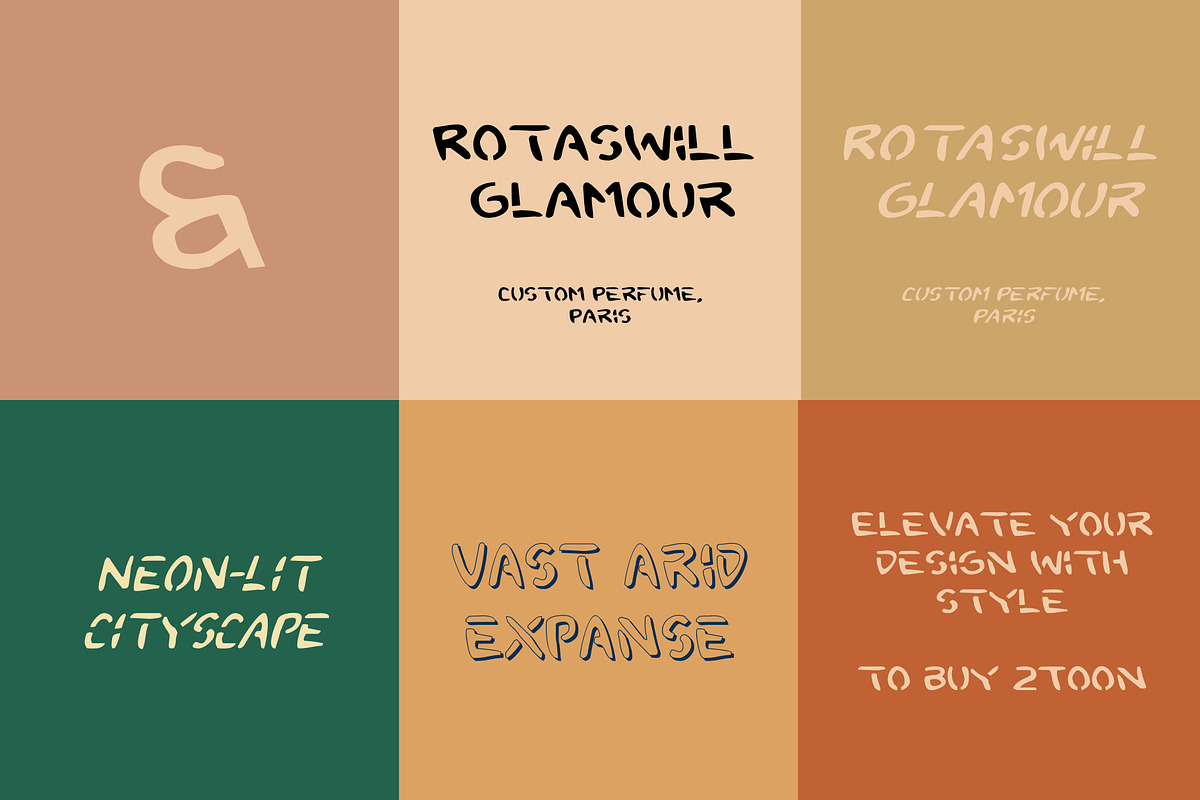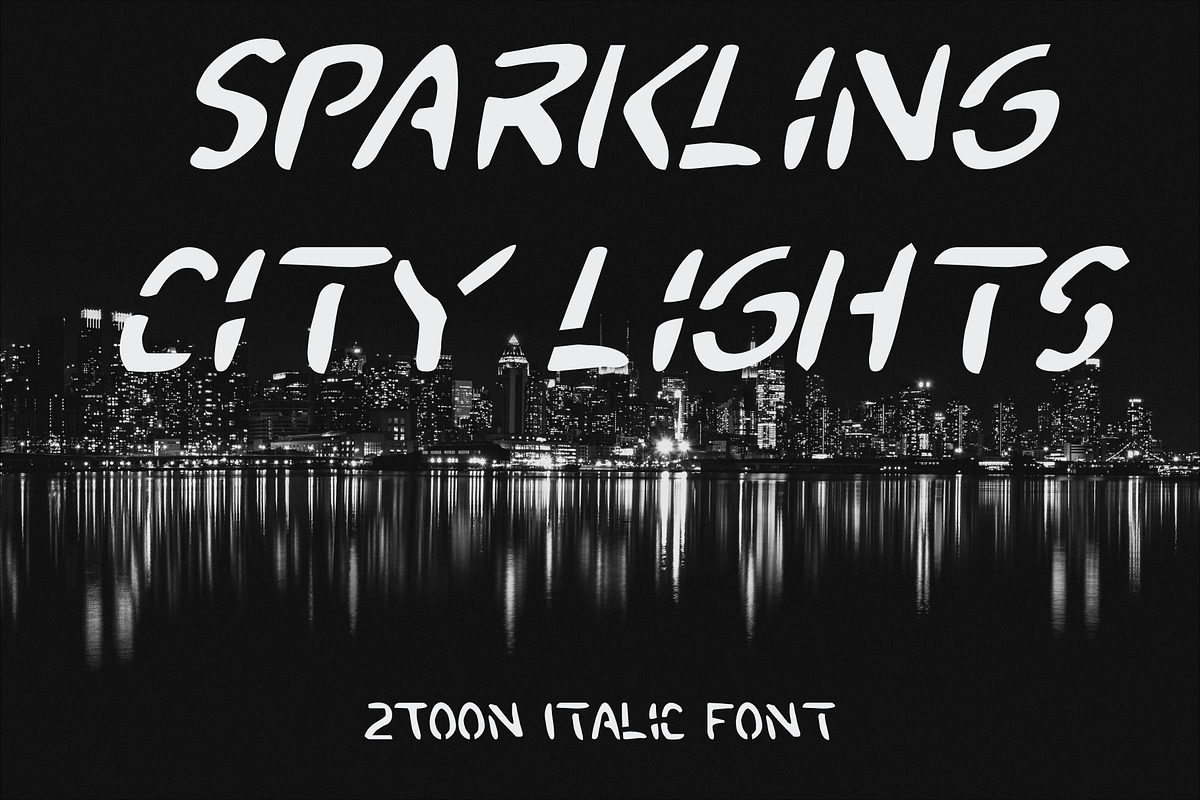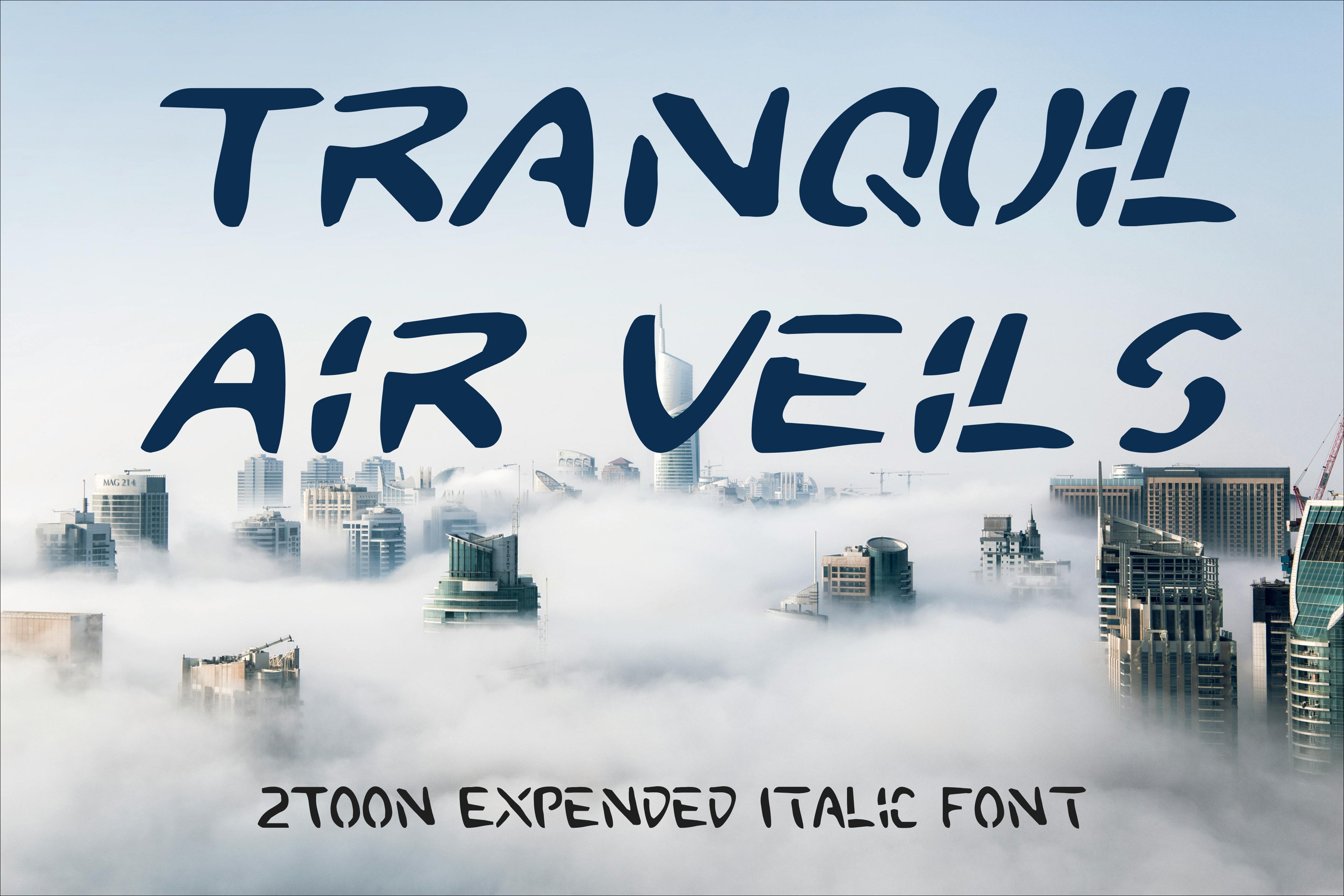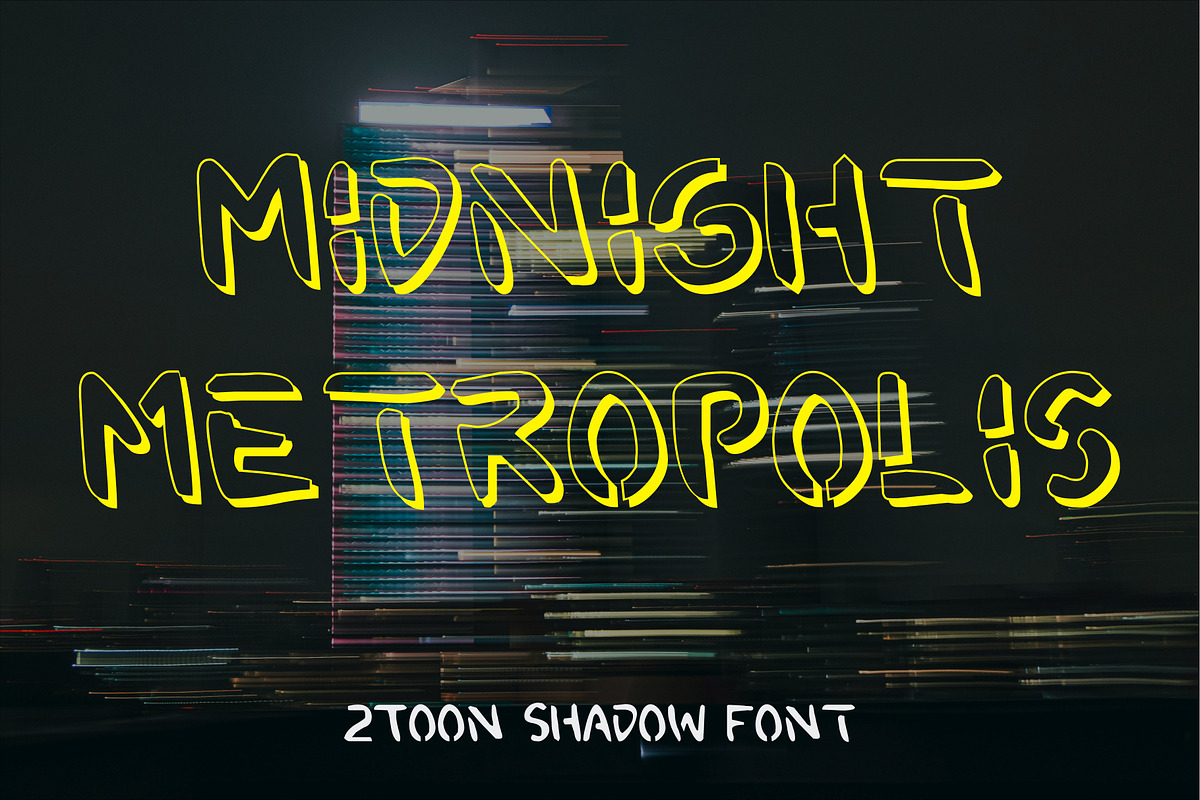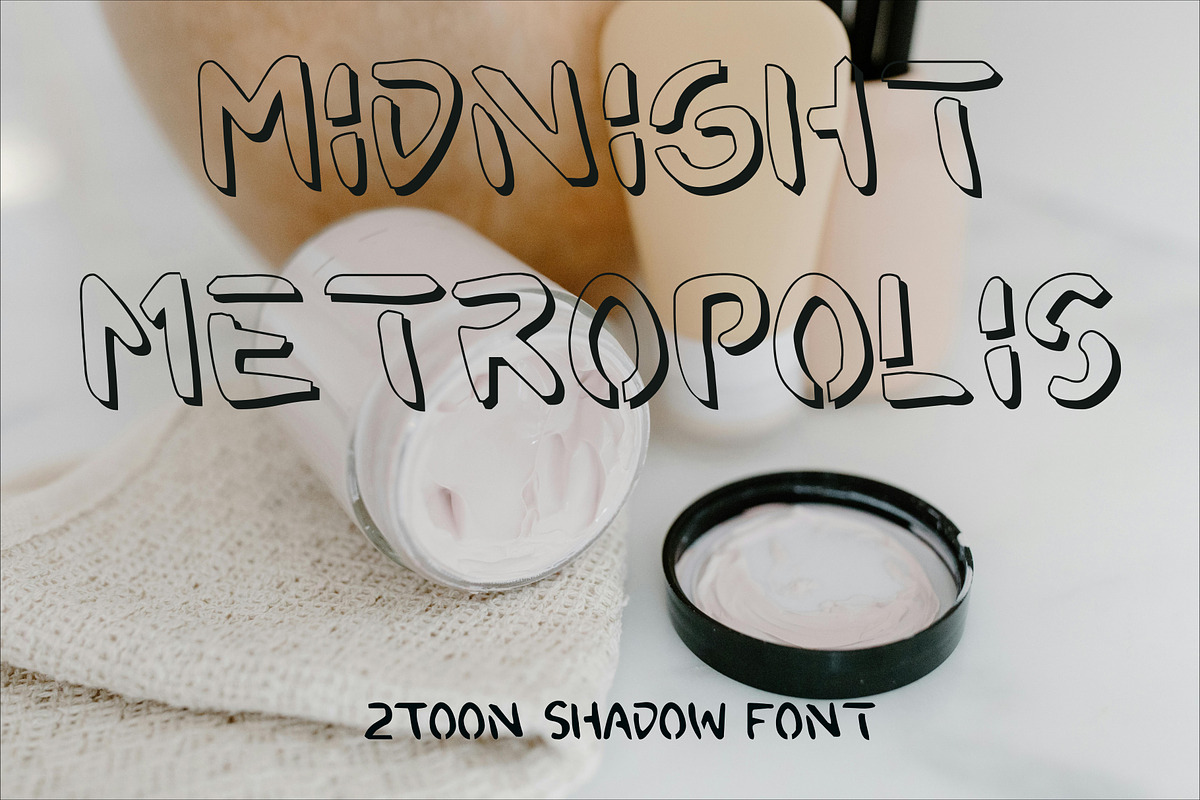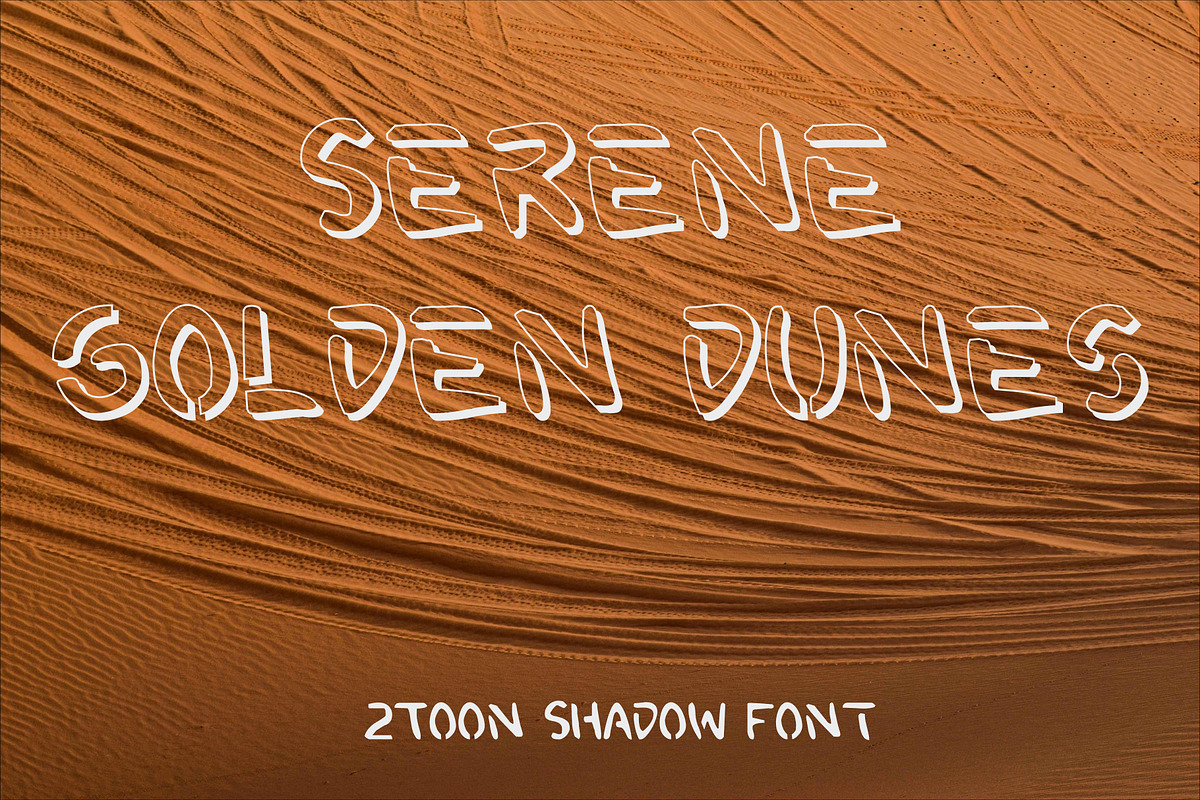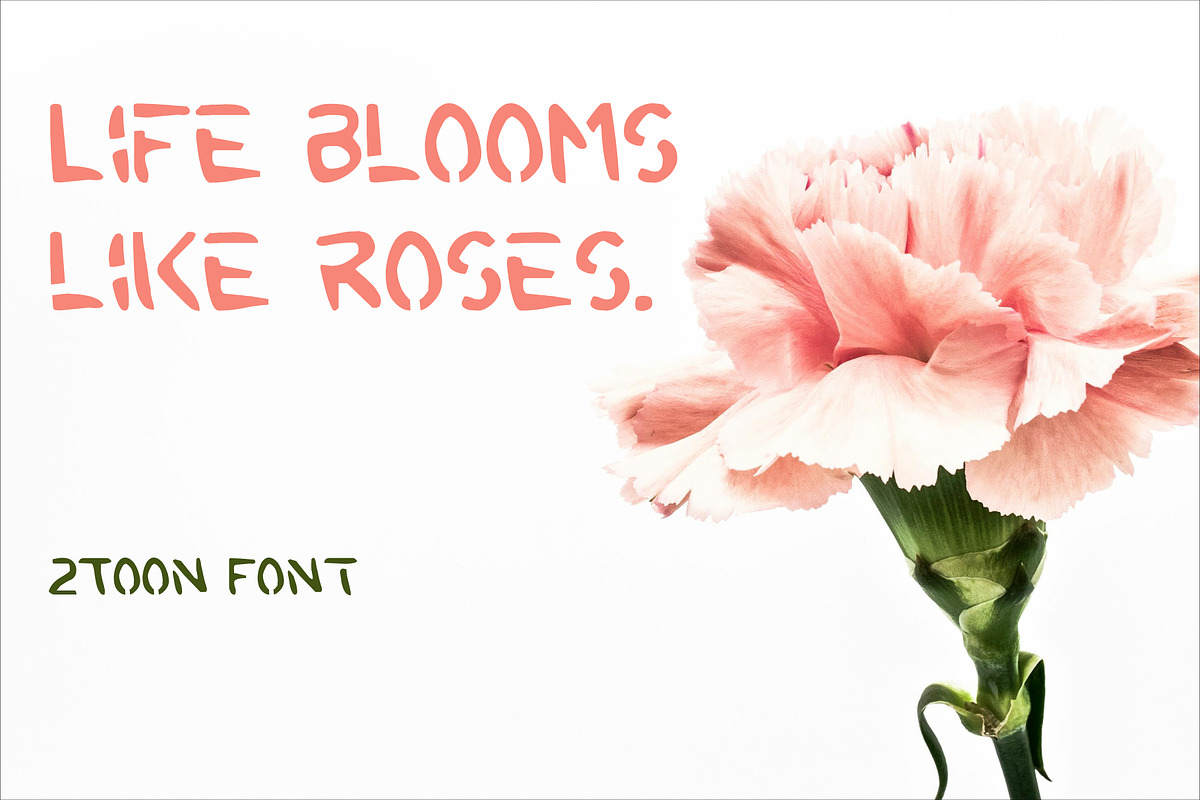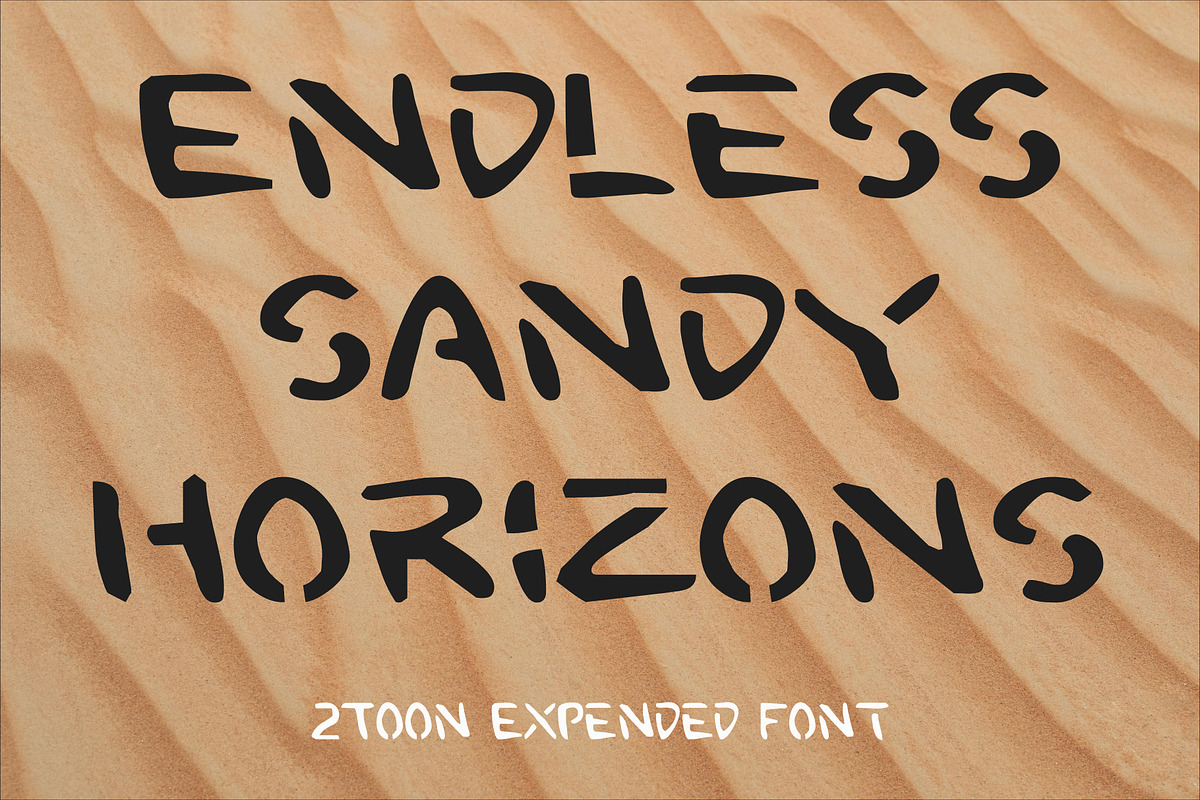
Modern Font Discover Elegance
Introducing our latest creation: a stunning, elegant font designed to elevate your projects to new heights of sophistication. Each letter is meticulously crafted to embody timeless grace and modern flair, making it perfect for everything from branding and invitations to editorial design and beyond. With its exquisite curves and impeccable details, this font not only enhances readability but also adds a touch of luxury to any layout.
Whether you're a seasoned designer or just starting, this font will inspire you to create captivating visuals that leave a lasting impression. Don't miss your chance to transform your work with this premium font – unlock your creativity and redefine elegance today!
Design Tips:
Adjust your letterspacing to add more groove! Tighter letterspacing for large headers and looser spacing for small body text.